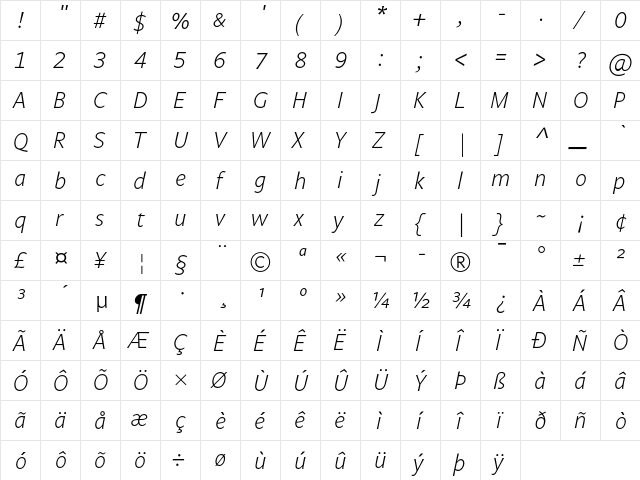
Legato TF Light Italic
Design Context for Legato Typeface
Legato offers clean, dependable letterforms without strong stylistic allegiance, making it a practical choice for designers who need flexibility. Its italic angle brings a sense of urgency and motion to the letterforms. Its slender proportions lend an understated elegance to any composition.
Pro Tip: Use Legato for emphasis, pull quotes, and subheadings where its slanted energy can add rhythm to the layout.